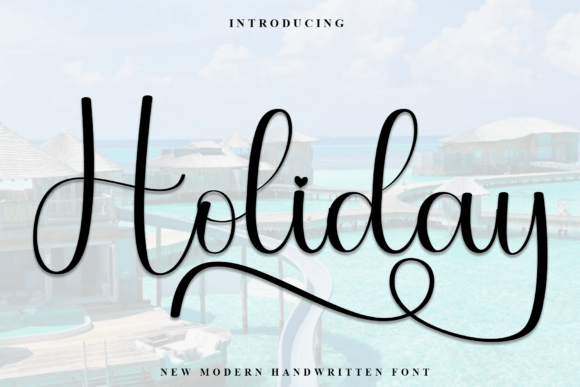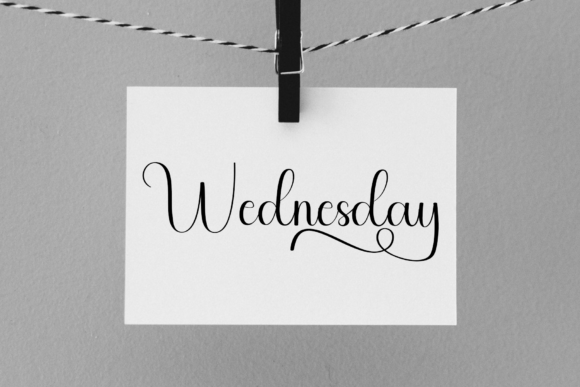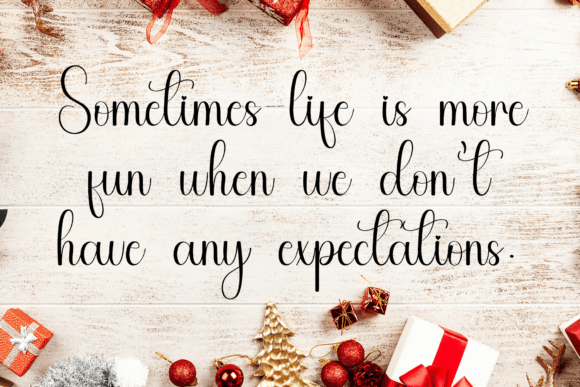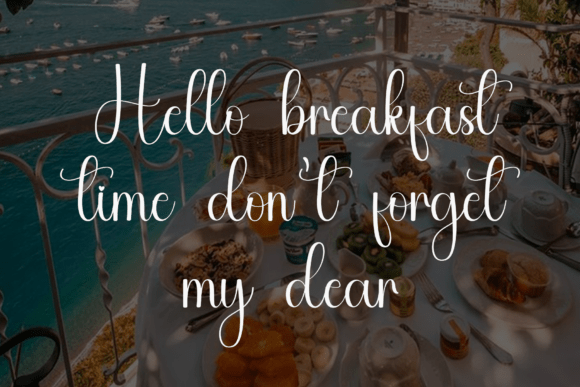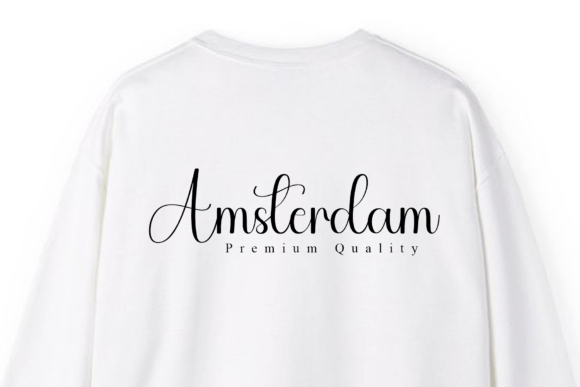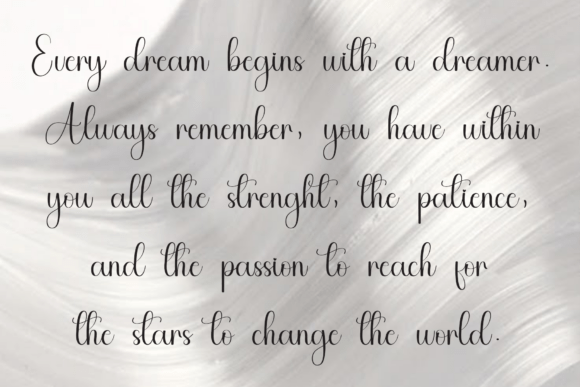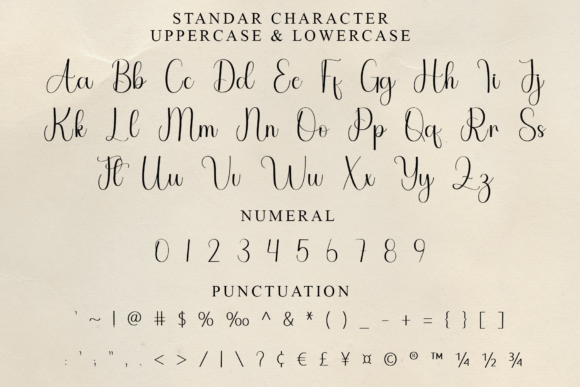
Unleash the Magic of the Holiday Season with a Timeless Touch
As a designer, have you ever found yourself stuck in a creative rut, searching for the perfect font to bring your holiday designs to life? You know the feeling – the twinkling lights, the cozy atmosphere, the sense of joy and wonder that comes with this special time of year. And then, it hits you – the perfect font to capture the essence of the holiday season.
That’s where Holiday Font comes in – a lovely and timeless handwritten font that’s perfect for creating eye-catching logos, branding, and quotes. With its unique and beautiful touch, every letter comes alive, making your design truly special. As a designer, you’ll love the versatility and charm of Holiday Font, making it a valuable addition to your design toolkit.
Holiday Font Key Features
- Unique Characteristics: This font features a festive and playful design, perfect for holiday-themed projects, with intricate details and ornaments.
Holiday Font Review
I’ve had the chance to work with the Holiday Font, and here’s my honest take.
- Unique and playful design: The Holiday Font has a distinctive, whimsical feel that’s perfect for festive or seasonal projects.
- Wide range of styles: It comes in several different styles, from bold and festive to cursive and elegant, giving you plenty of options for your design needs.
- Easy to read: Despite its playful nature, the font is still easy to read, even at smaller sizes.
- Not suitable for formal projects: While it’s great for festive or seasonal designs, the Holiday Font might not be the best choice for formal or professional projects.
Overall, I think the Holiday Font is a fun and versatile addition to any designer’s toolkit. It’s perfect for projects that need a playful, festive touch, but it might not be the best choice for more formal or professional work. With a little care and attention, it can be a valuable asset in your design arsenal.
Holiday Font is perfect for:
- Cards and invitations for Christmas, New Year’s, and other holidays.
- Decorative typography for flyers, posters, and brochures.
- Custom gift tags and packaging labels.
Get creative and experiment with different Holiday Font styles to add a festive touch to your designs!